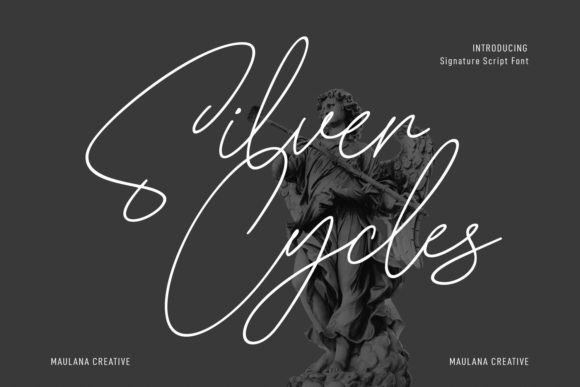
Step into the world of Silver Cycles Font, an extraordinary script font that mirrors the grace of a ballerina and the fiery spirit of a champion. Its enchanting strokes, reminiscent of a calligrapher's quill, flow seamlessly, creating an aura of elegance and sophistication.
With its dynamic and eye-catching presence, Silver Cycles Font is the perfect choice for a wide range of creative projects. Let your imagination soar as you craft stunning logos that exude a sense of luxury and prestige. This font is a game-changer for branding, adding a dash of uniqueness to sports team logos, fashion labels, and even product packaging.
It's not just about aesthetics, though. Silver Cycles Font has the substance to match its style. Its versatility allows it to adapt effortlessly to a variety of design styles, from classic and timeless to modern and edgy. Whether you're creating wedding invitations, social media graphics, or website headers, this font will elevate your work to new heights.
Unleash your creativity and craft designs that resonate with your audience. Embrace the allure of Silver Cycles Font and watch as your projects come alive with its captivating charm. It's more than just a font; it's an experience that will transform your creative vision into a reality.